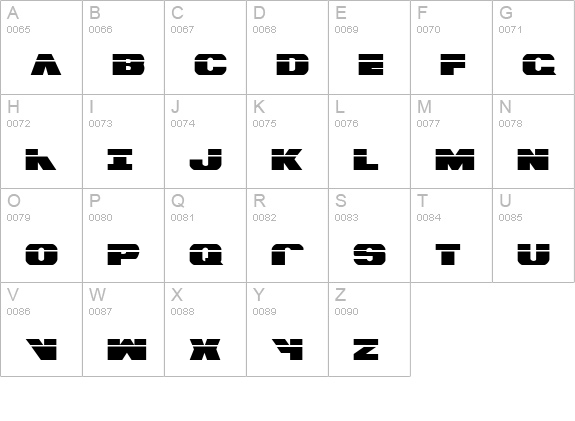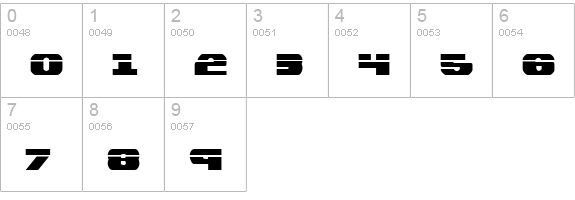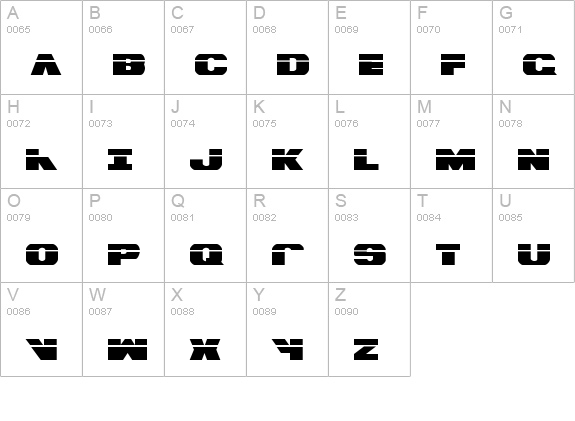
Bummer Laser font is a bold and eye-catching typeface that exudes a fun and playful vibe. Perfect for making a statement in your designs, this font features sharp lines and a futuristic style that will instantly grab attention. Whether you're creating posters, logos, or social media graphics, Bummer Laser font will add a touch of energy and modernity to your projects. The best part? Bummer Laser font is completely free to download at FontsMarket.com. Get your hands on this dynamic font and take your designs to the next level with its unique and striking look. Download it now and let your creativity shine!